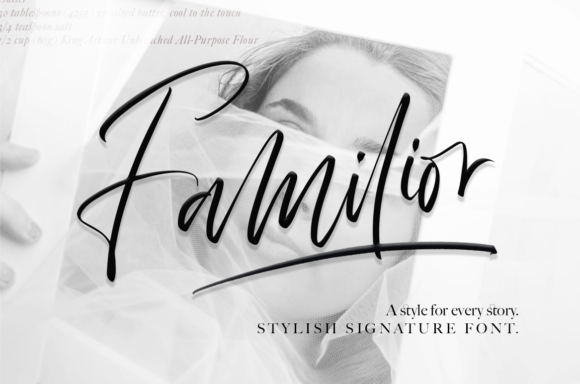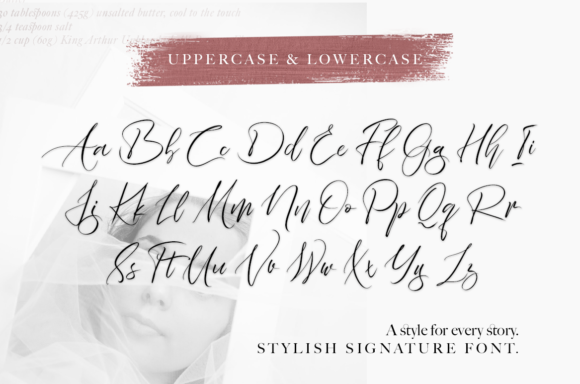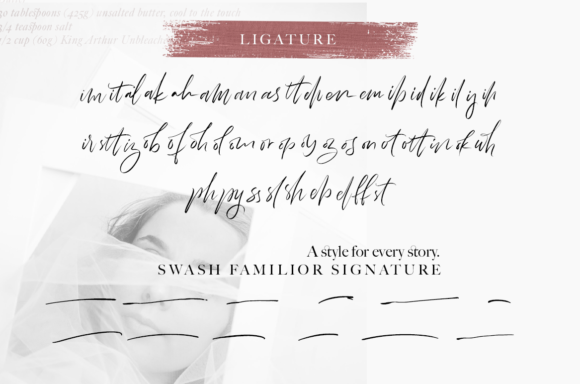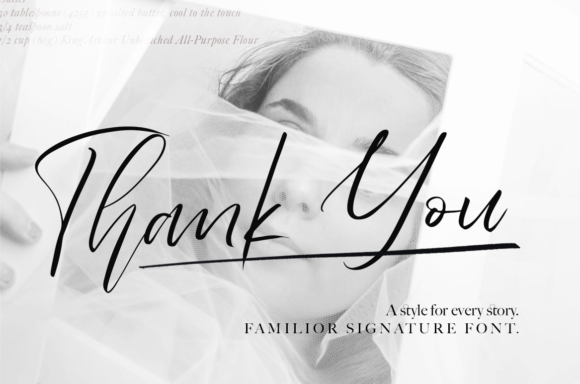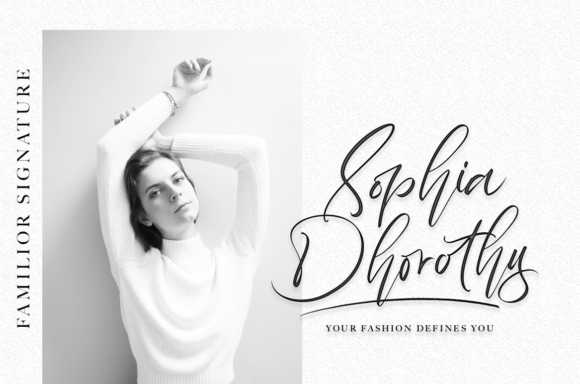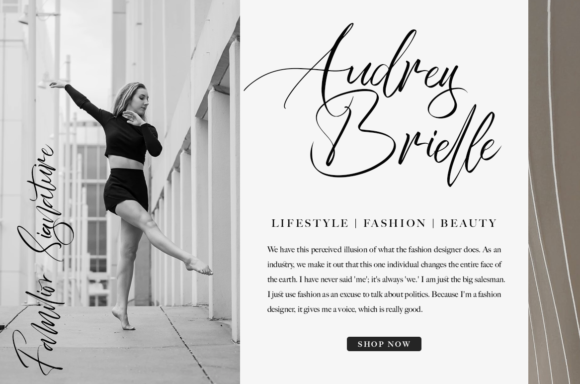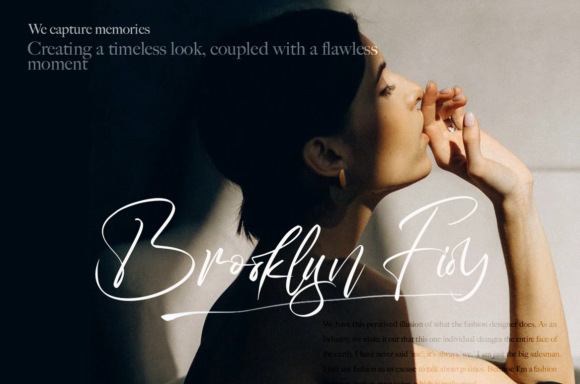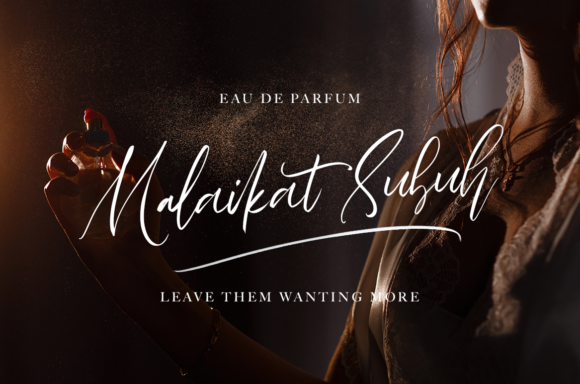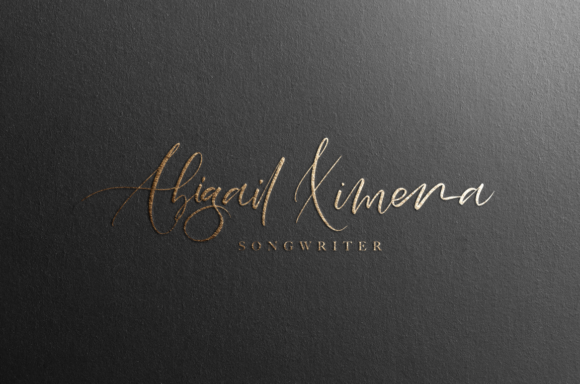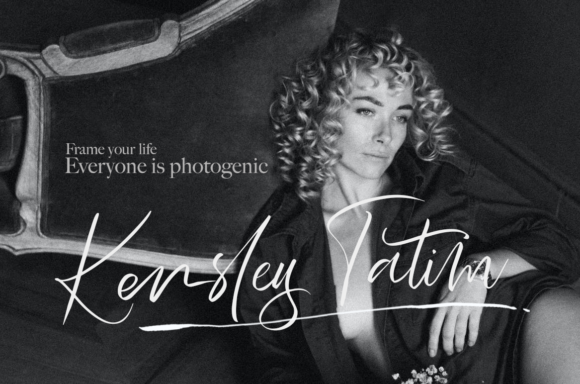
Familior Font
About Familior Font
Familior feels equally charming and elegant. This stunning script font is a stylish homage to classic calligraphy. It features a varying baseline, smooth lines, gorgeous glyphs and stunning alternates. Whether you’re looking for fonts for Instagram or calligraphy scripts for DIY projects, Familior will turn any creative idea into a true piece of art!